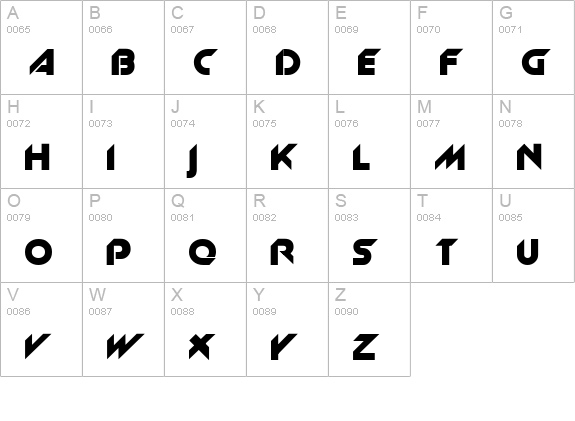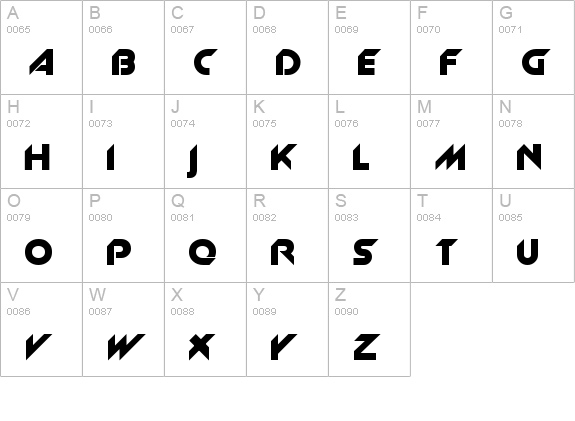
Slant Font Details
Slant font is a visually captivating typeface that effortlessly combines elegance with a touch of modernity. With its sleek and stylish slanted design, this font exudes a sense of sophistication and uniqueness, making it perfect for various creative projects. The flowing curves and sharp angles of Slant font create a dynamic and eye-catching appearance, allowing it to stand out from the crowd. Whether used in headlines, logos, or branding materials, this font adds a contemporary and edgy vibe to any design. One of the most enticing features of Slant font is that it is available for free download at FontsMarket.com. This means that designers and enthusiasts alike can easily access this stunning typeface without any cost. The convenience of having such a high-quality font readily available makes it a valuable asset for both personal and professional use. Slant font's versatility is another reason why it has become a popular choice among designers. Its clean and legible characters make it suitable for a wide range of projects, from digital designs to print materials. Additionally, its ability to adapt to different styles and themes ensures that it can be seamlessly integrated into any design concept. In conclusion, Slant font is a remarkable typeface that effortlessly combines elegance and modernity. Its captivating design and free availability at FontsMarket.com make it an irresistible choice for designers seeking a visually striking and versatile font. Whether used in digital or print designs, Slant font is sure to leave a lasting impression on viewers.